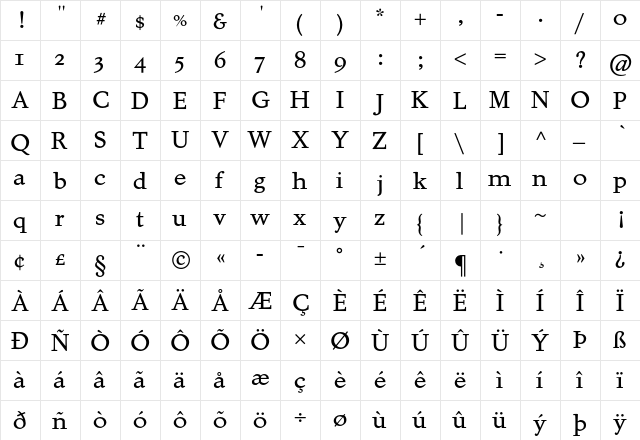
Juvelo Regular
Design Context for Juvelo Typeface
Juvelo takes a measured approach to typography — its balanced proportions and neutral character make it a reliable workhorse for both digital and print work.
Pro Tip: Use Juvelo in both headline and body roles to test its range before committing to a single application.